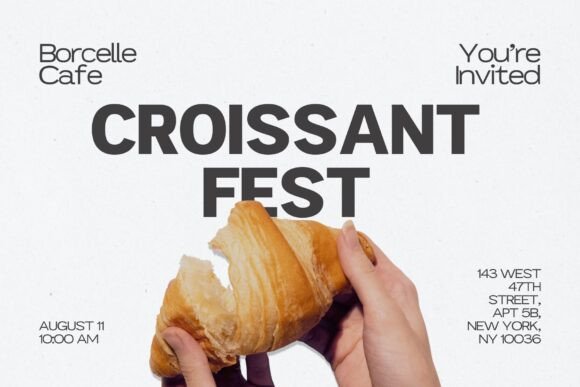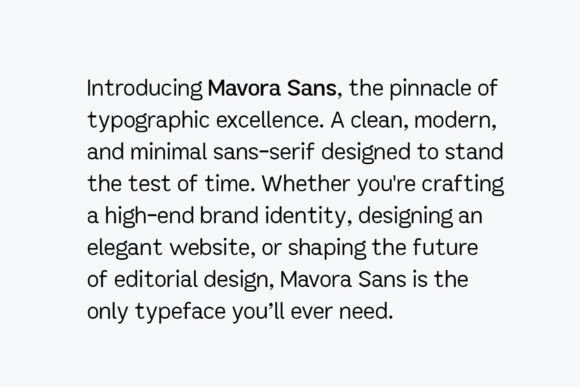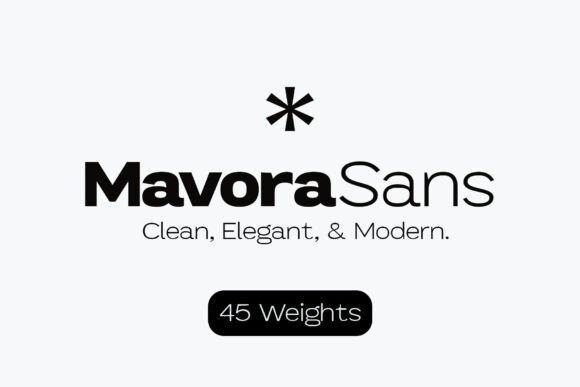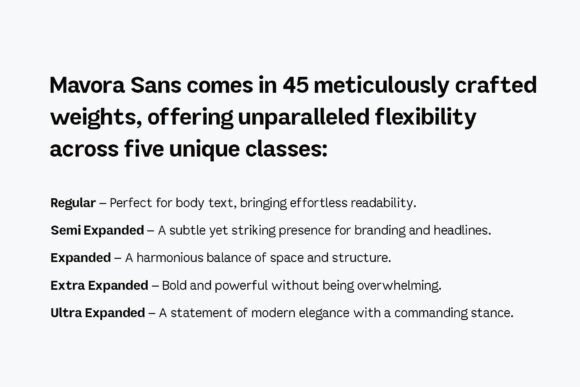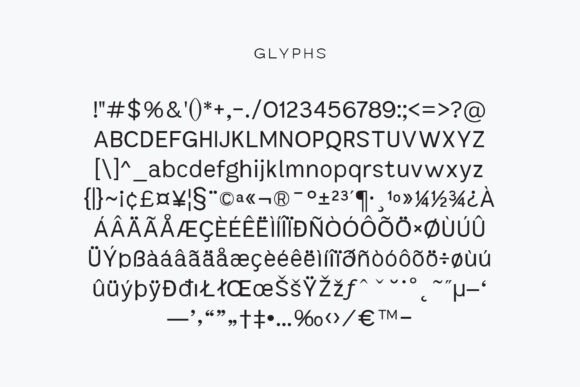
Introduction to Mavora Sans Typeface Font
Introducing Mavora Sans, the pinnacle of typographic excellence.
A clean, modern, and minimal sans-serif designed to stand the test of time Whether youโre crafting a high-end brand identity, designing an elegant website, or shaping the future of editorial design, Mavora Sans is the only typeface youโll ever need.
Key Features of Mavora Sans Typeface Font
Why Choose Mavora Sans Typeface Font?
Mavora Sans Typeface Font offers exceptional quality and versatility, making it a valuable addition to your design toolkit. Whether you’re creating for personal projects or commercial use, Mavora Sans Typeface Font delivers professional results.